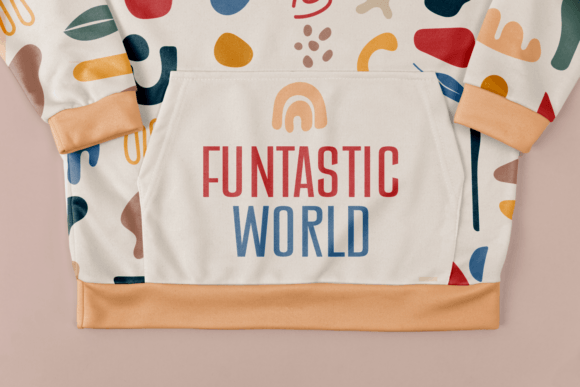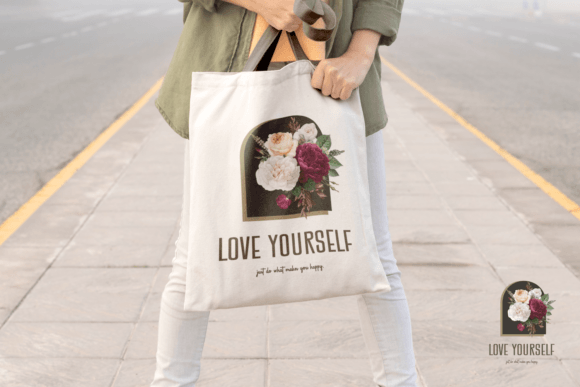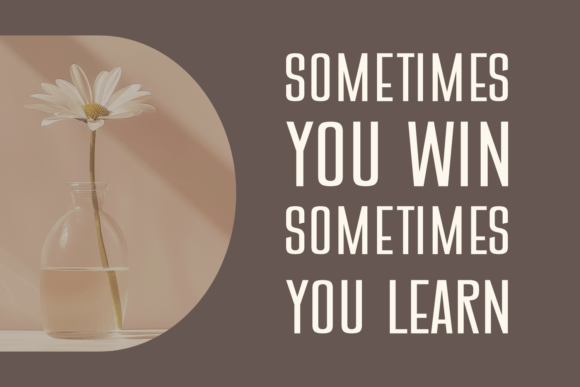
Introduction to Moderos Font
Have you ever found yourself stuck in the middle of a creative project, desperately searching for the perfect font to bring your vision to life? That was me last week, pouring over countless design resources in search of the perfect sans-serif font. And then, like a beacon of hope, I stumbled upon Moderos Font. Its bold, clean lines and modern aesthetic immediately caught my attention, and I knew I had to learn more.
Moderos Font is a game-changer for designers, offering a high-quality design resource that’s both easy to read and visually striking. Whether you’re working on a title, logo, or other design element, Moderos Font is sure to make your words stand out – especially when paired with a transparent background. And the best part? It’s available for free download, making it a valuable addition to any designer’s toolkit.
Key Features of Moderos Font
- High-quality, modern sans-serif font design perfect for creative projects.
- Features a transparent background, allowing for seamless integration with various backgrounds and designs.
- Unique characteristics include clean lines, geometric shapes, and a highly legible font face.
- Perfect for use in digital and print media, including websites, logos, posters, and business cards.
Honest Review: Moderos Font
I recently stumbled upon the Moderos Font, and I must say it’s a great addition to any designer’s toolbox. As a design resource, it offers a unique and modern look that can elevate any creative project.
Here are some of the things that work well with the Moderos Font:
- High-quality design that’s perfect for professional projects
- Transparent background, making it easy to customize
- Wide range of applications, from logos to typography
- Some users may find the font too modern or edgy
- Limited support for certain languages
Overall, I’m impressed with the Moderos Font. It’s a great choice for designers looking for a high-quality, modern font that can add a touch of sophistication to their creative projects. While it may have some limitations, the benefits far outweigh the drawbacks.
To get the most out of Moderos Font, use it in conjunction with other high-quality design elements. Experiment with different font sizes and colors to create a unique and creative design.
The Moderos Font is ideal for use in a variety of creative projects, including logos, business cards, and presentations. Its high-quality design and transparent background make it a versatile design resource.